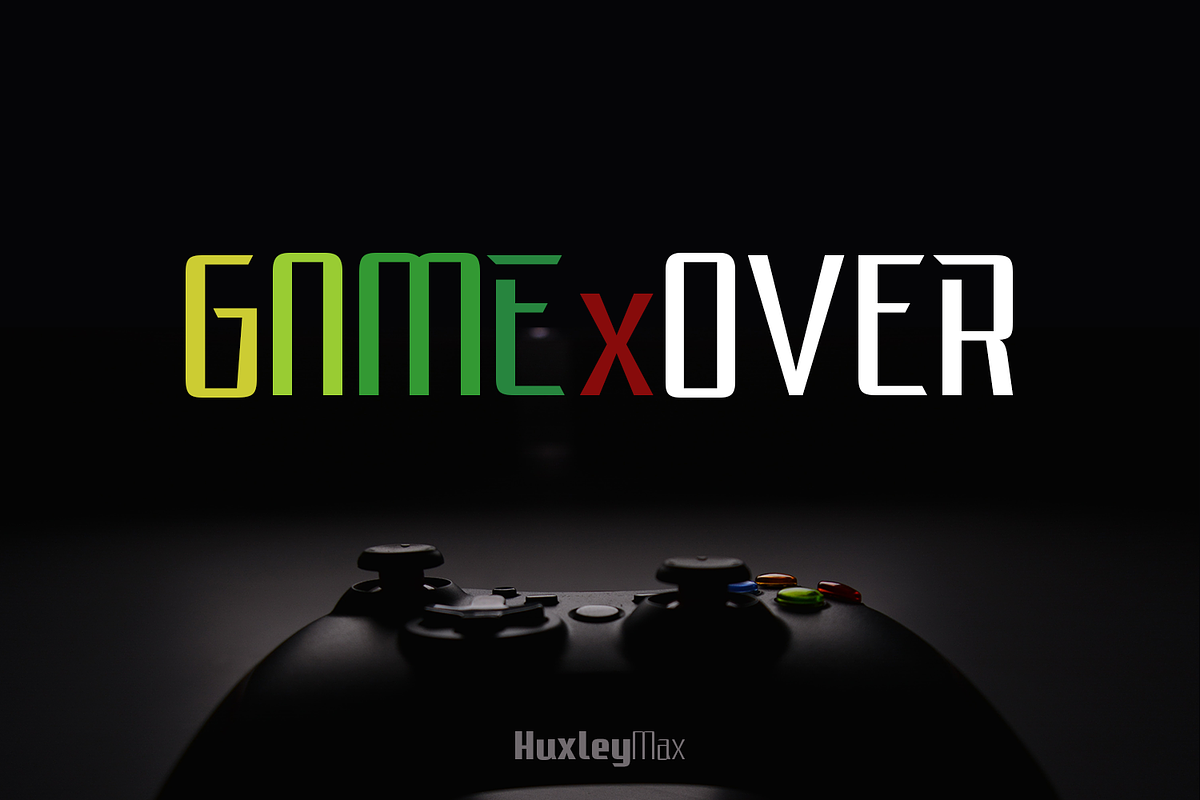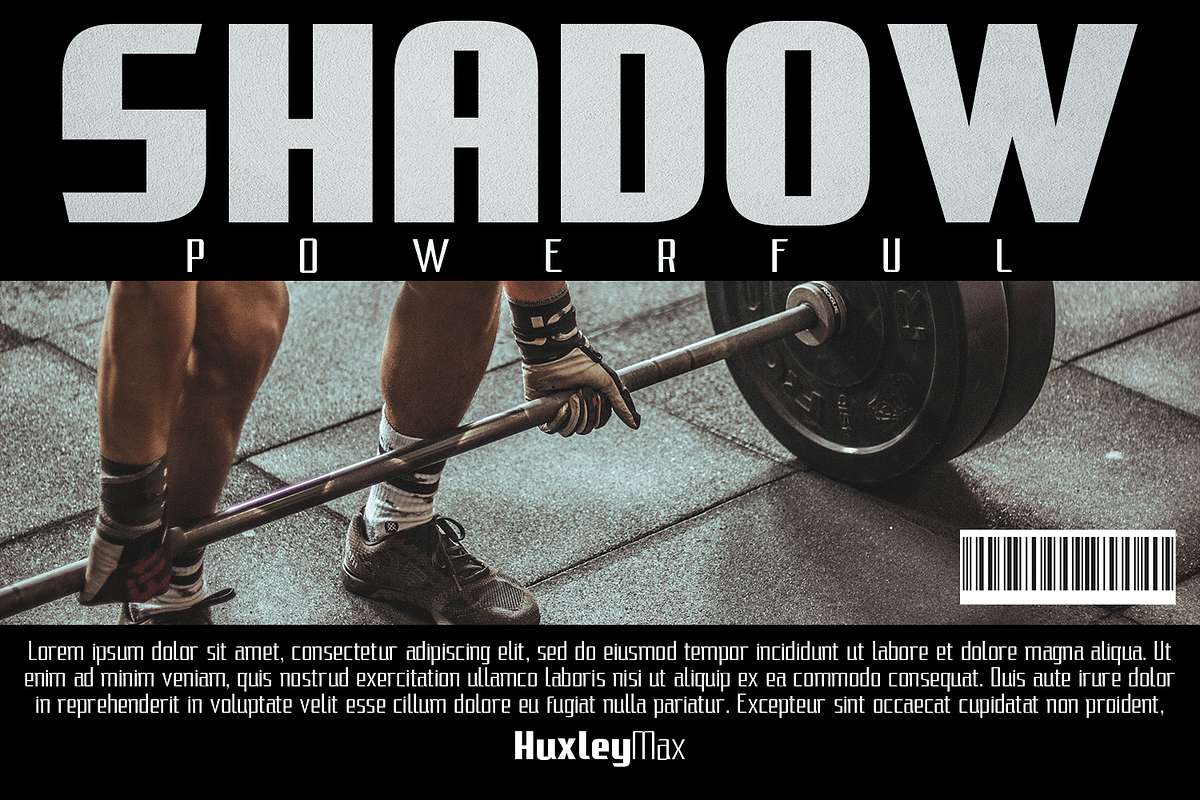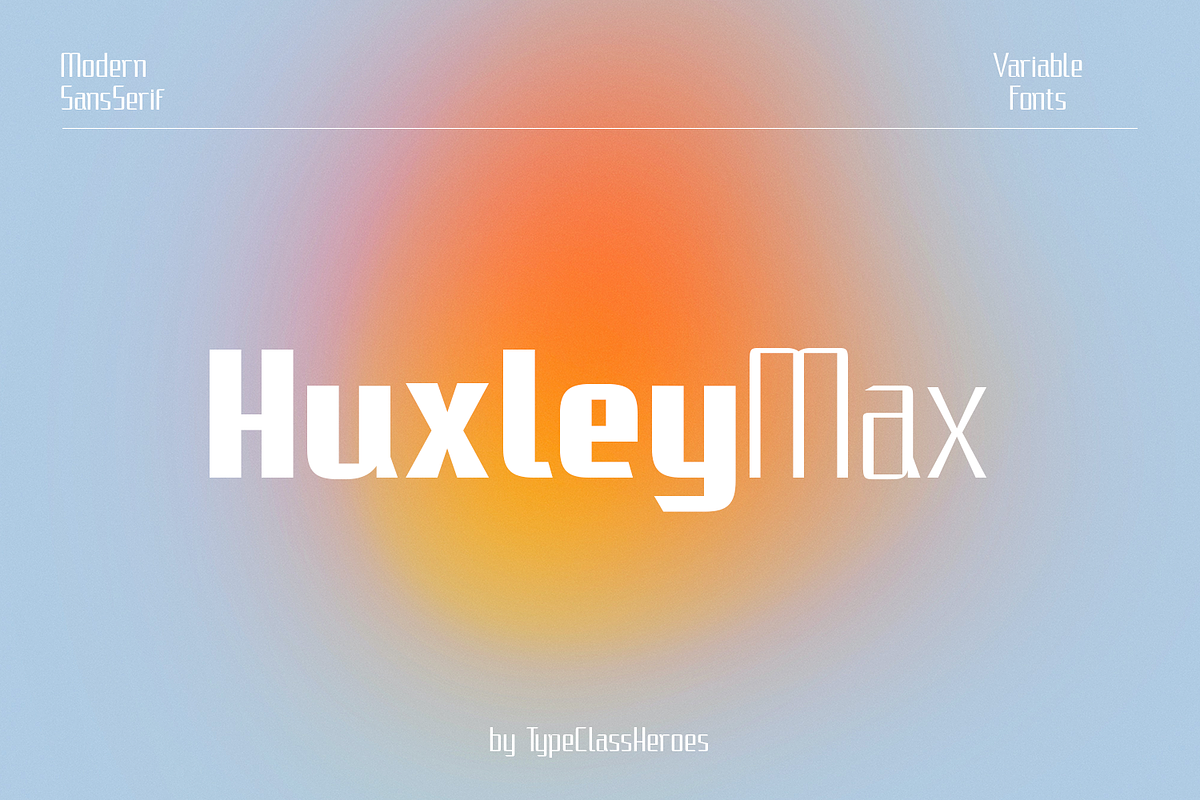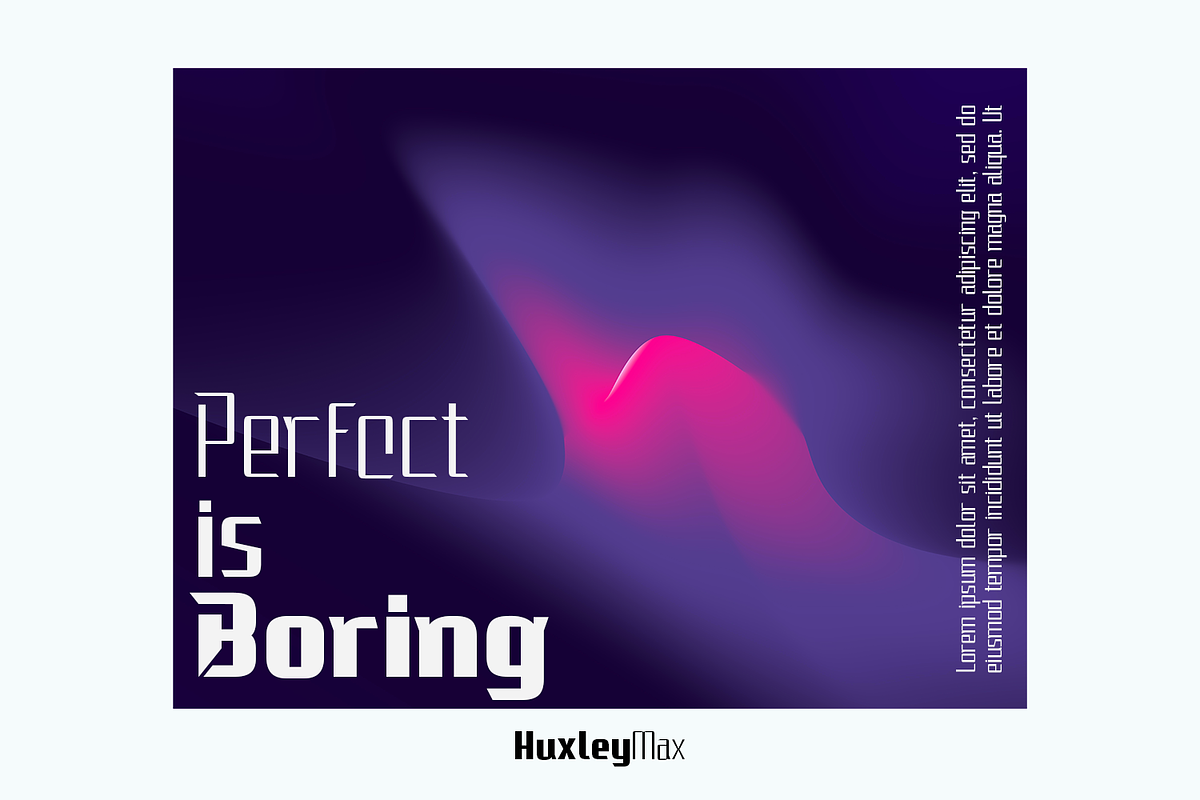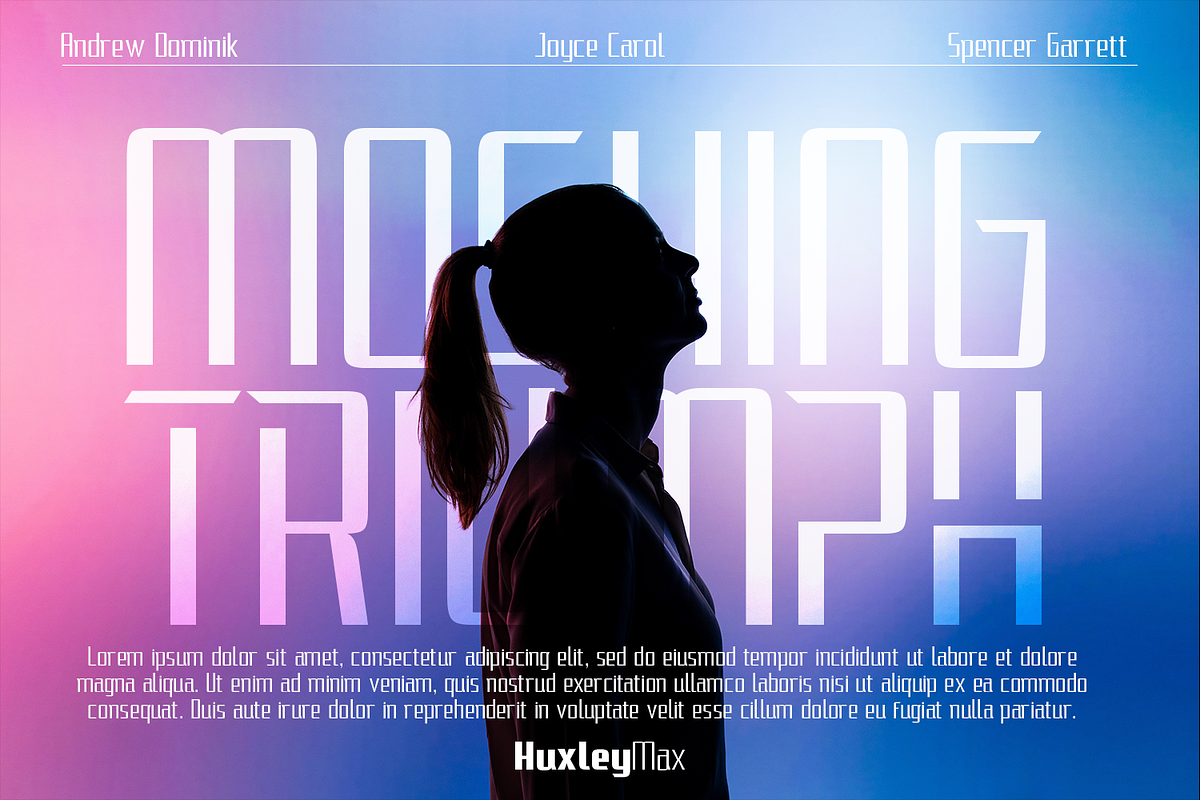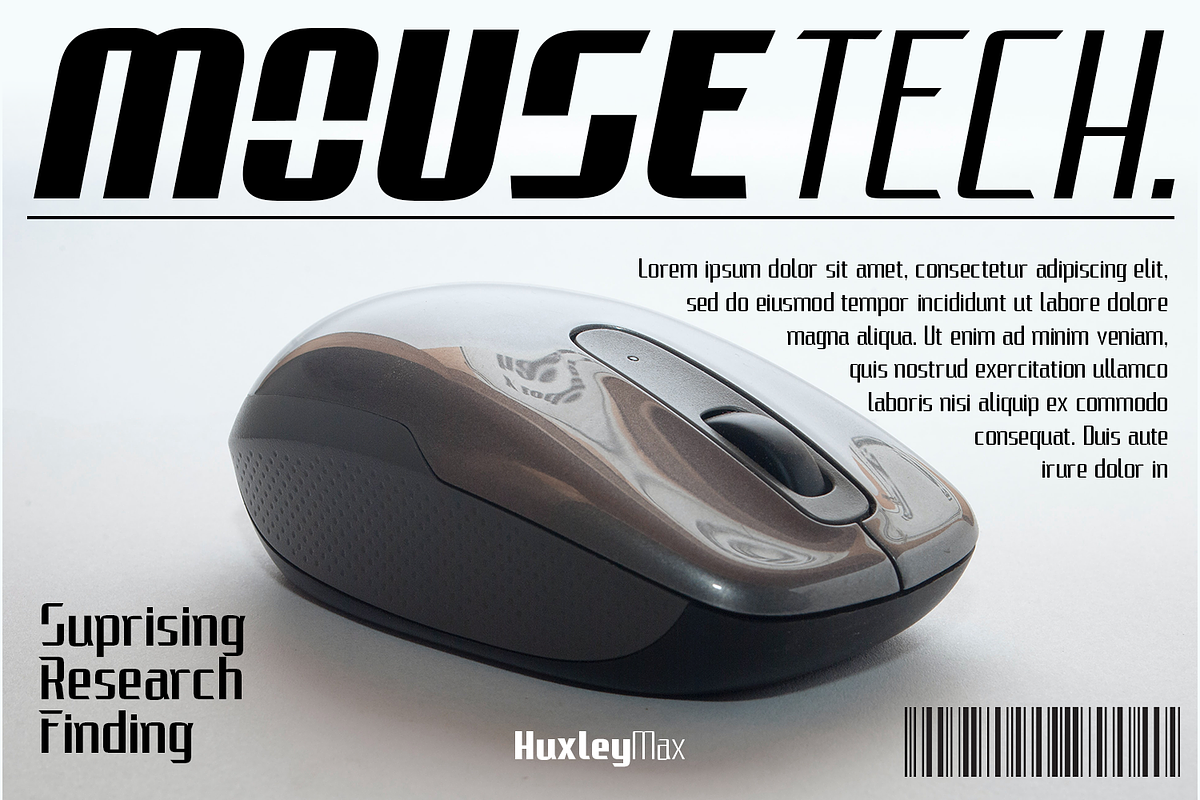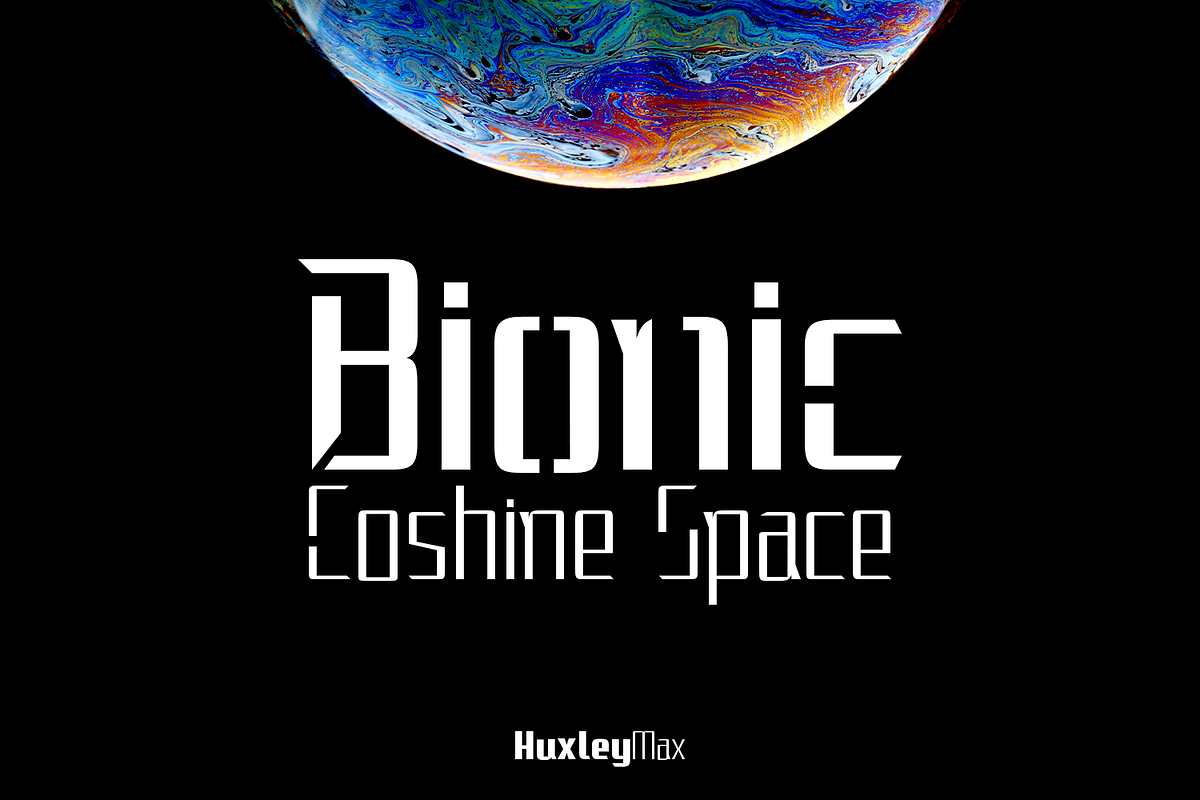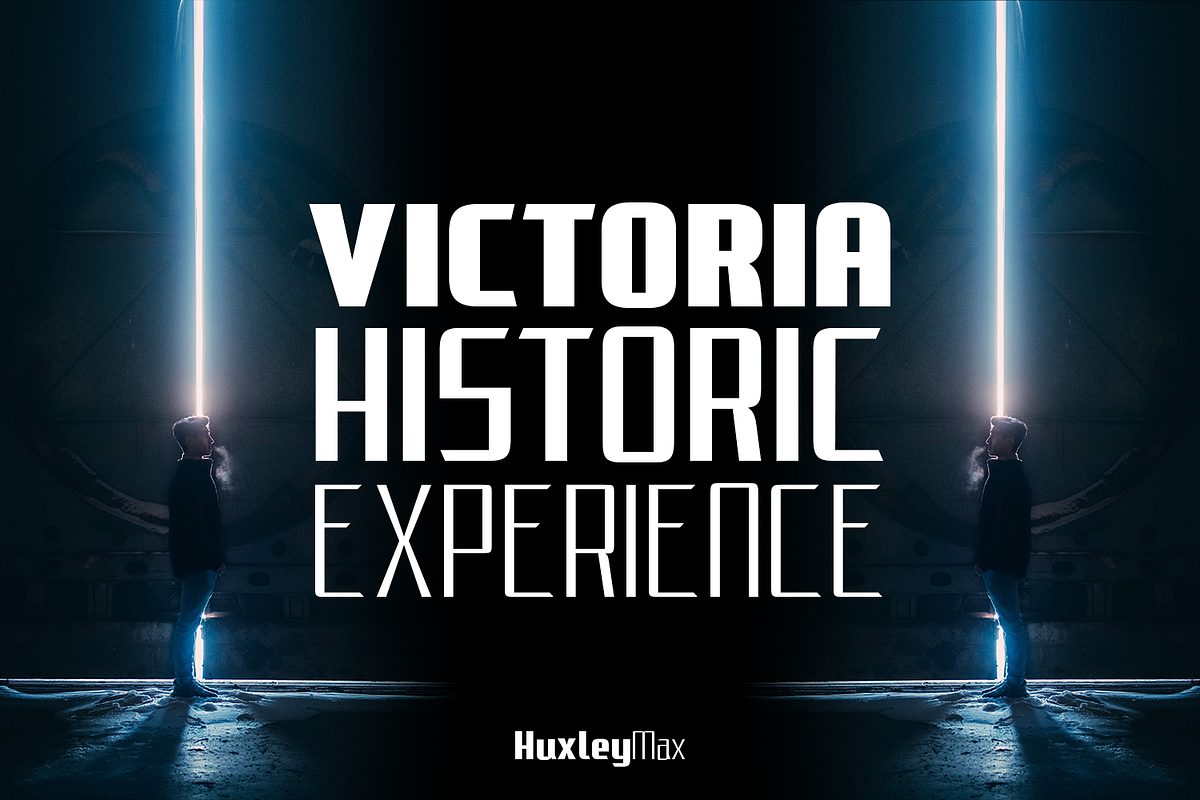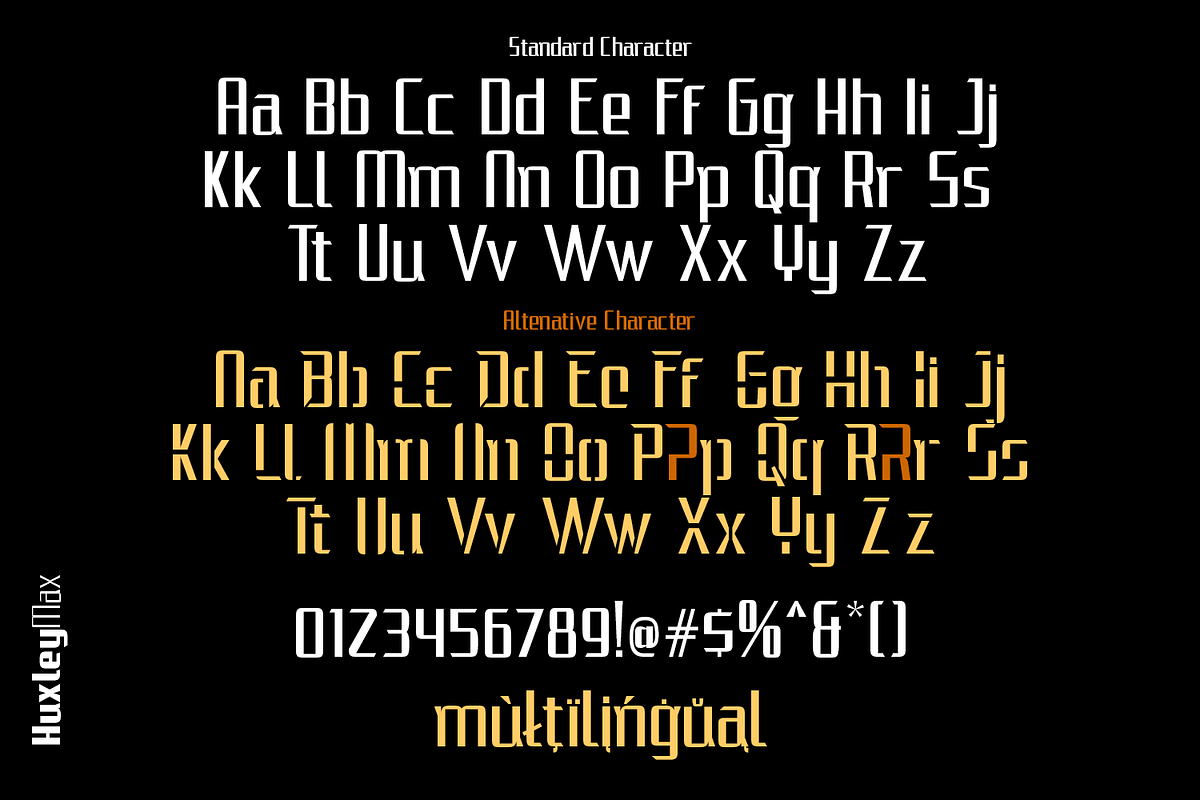
HuxleyMax
HuxleyMax is a Modern sans serif display. Its simple design with various width and weight that you can explore and combine creating rhythm and texture for comfortable reading. In variable version, it allows multiple options when designing, adapting to different composition solutions. use this font for any branding, product packaging, invitation, quotes, t-shirt, label, poster, logo etc.
- International Glyphs